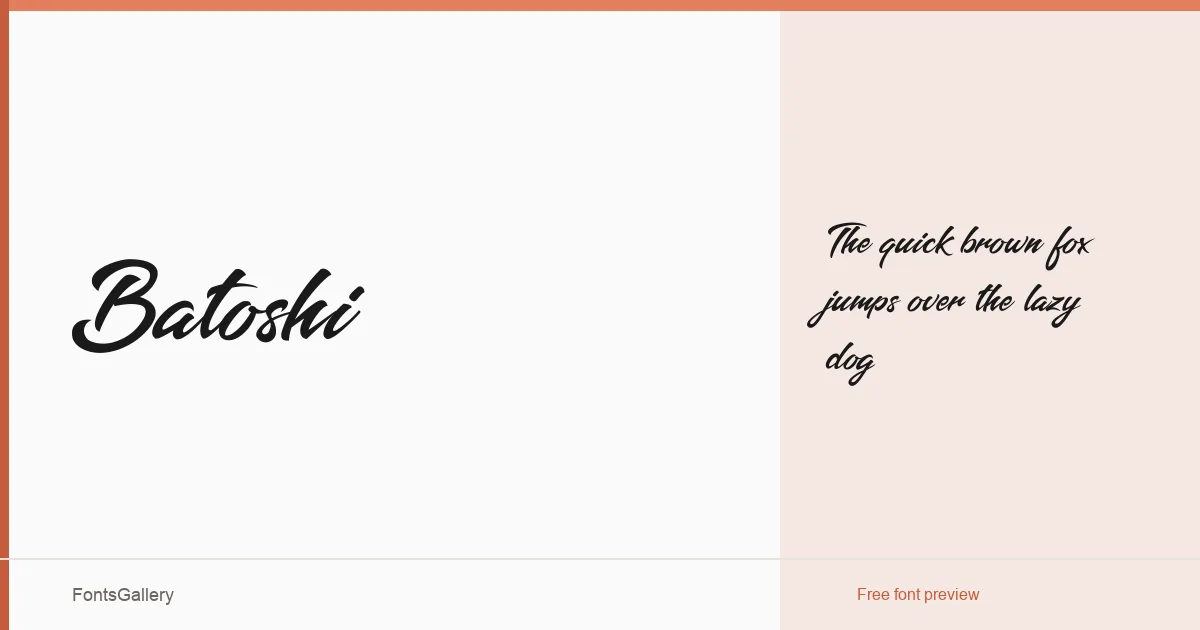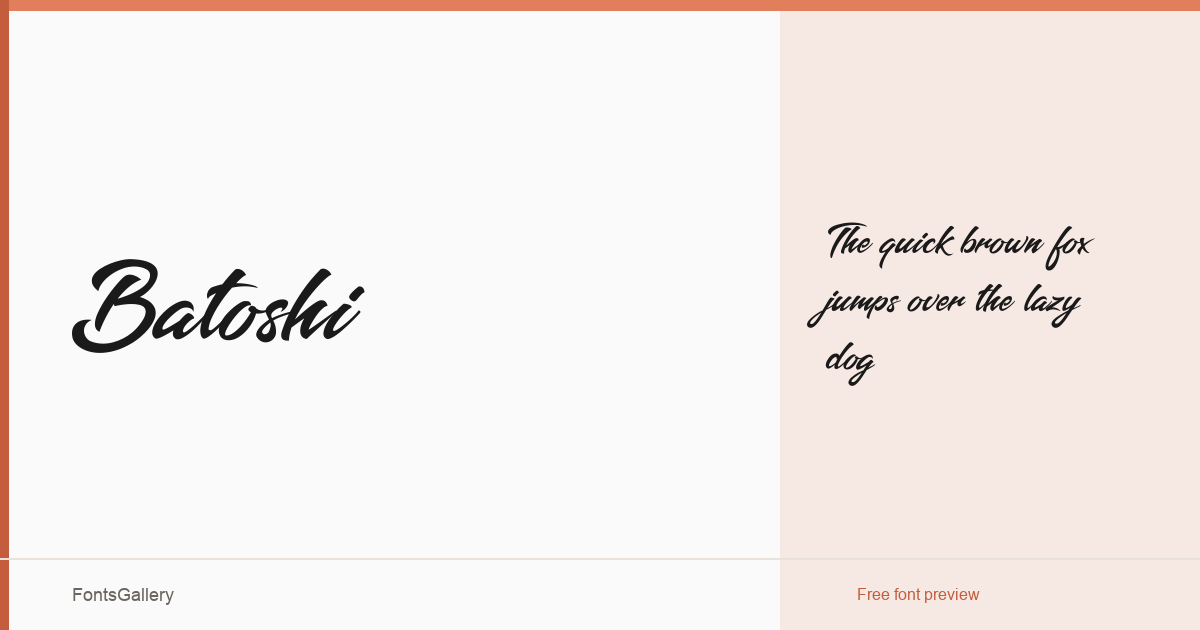
About Batoshi Font
Batoshi is an elegant script typeface crafted by hustletter, designed to evoke a sense of luxury, romance, and timeless sophistication. Its flowing letterforms make it an ideal choice for projects that demand a refined and classic aesthetic. Whether used for formal occasions or upscale branding, Batoshi brings a graceful, distinctive character to any design.
As a script font rooted in elegance and classic romance, Batoshi features fluid, sweeping strokes that echo the tradition of fine calligraphy. Its letterforms carry a luxurious quality, with carefully balanced curves and connecting characters that lend a sense of intimacy and prestige. The overall feel is polished and timeless, making each word feel like a personal, handcrafted gesture.
Batoshi shines in applications such as wedding stationery, invitation cards, greeting cards, certificates, and luxury branding projects where an air of sophistication is essential. Its romantic and classic mood also makes it well suited for high-end product packaging and editorial design. For a compelling typographic pairing, consider combining Batoshi with Aresink for a cohesive script-forward layout, or with Helvetica for a striking contrast between warmth and clean modernity.